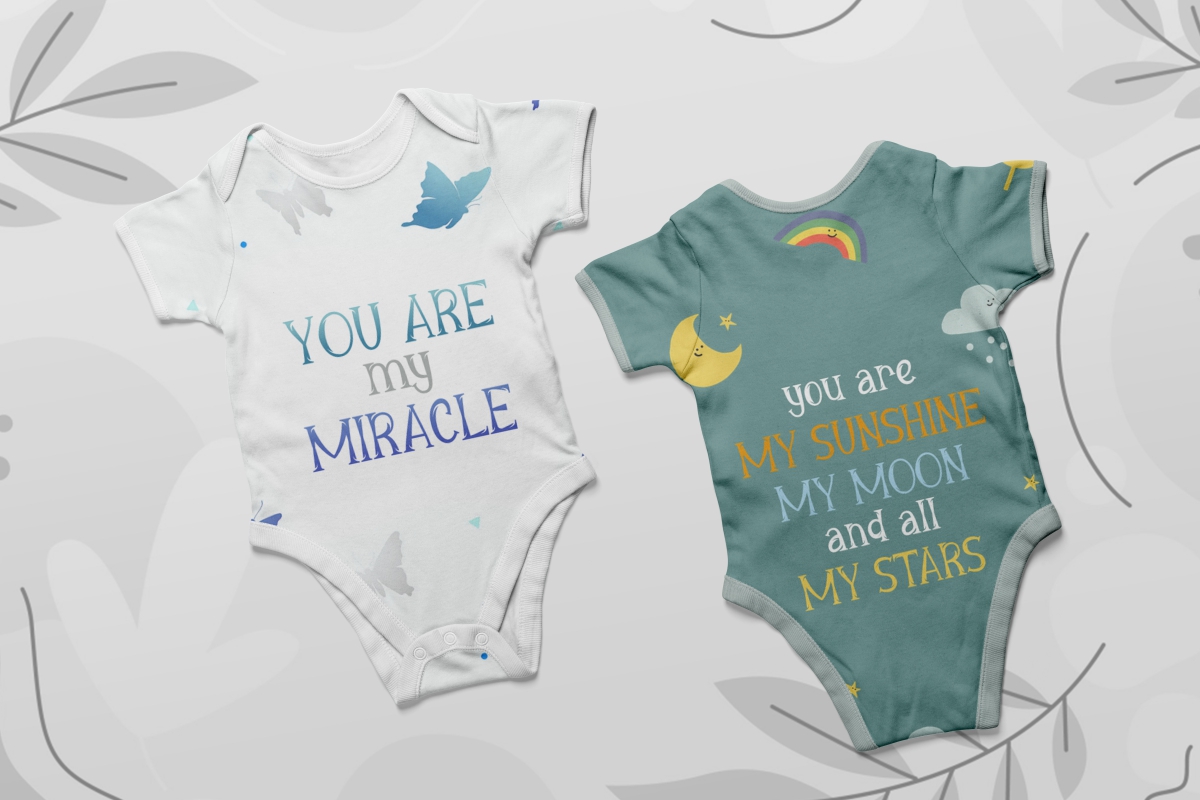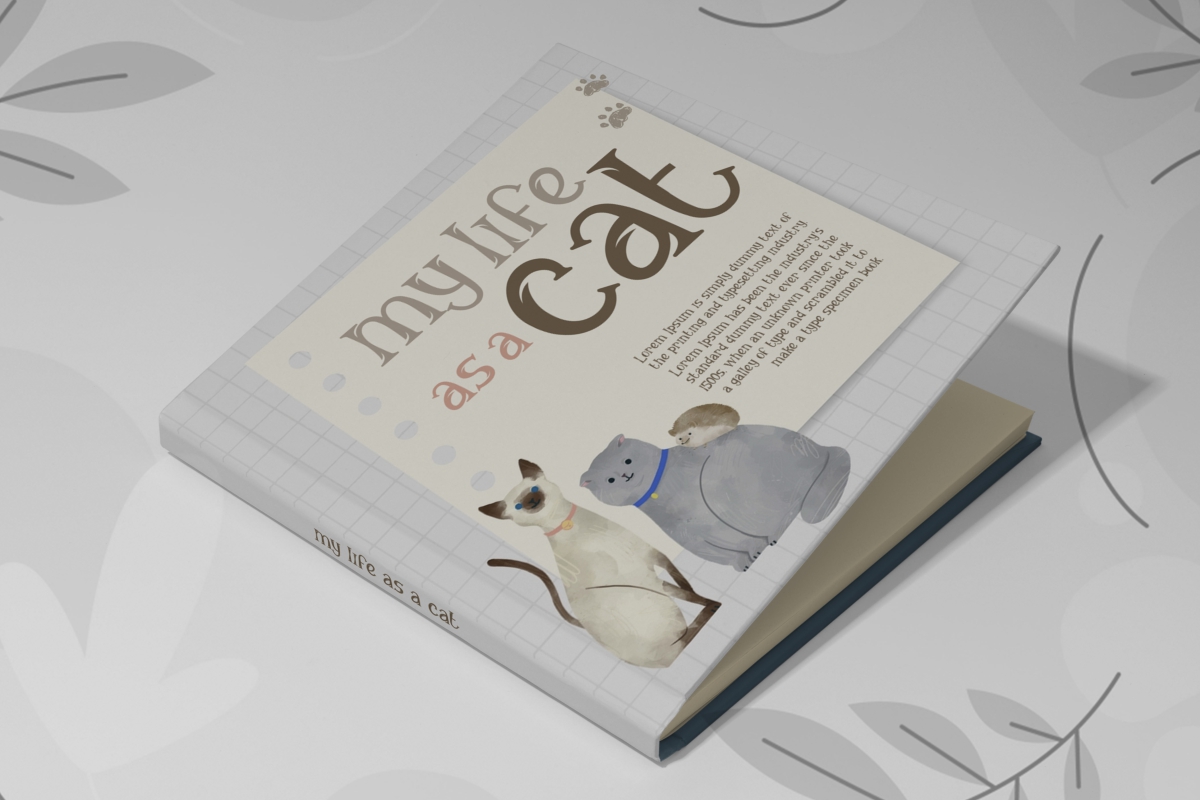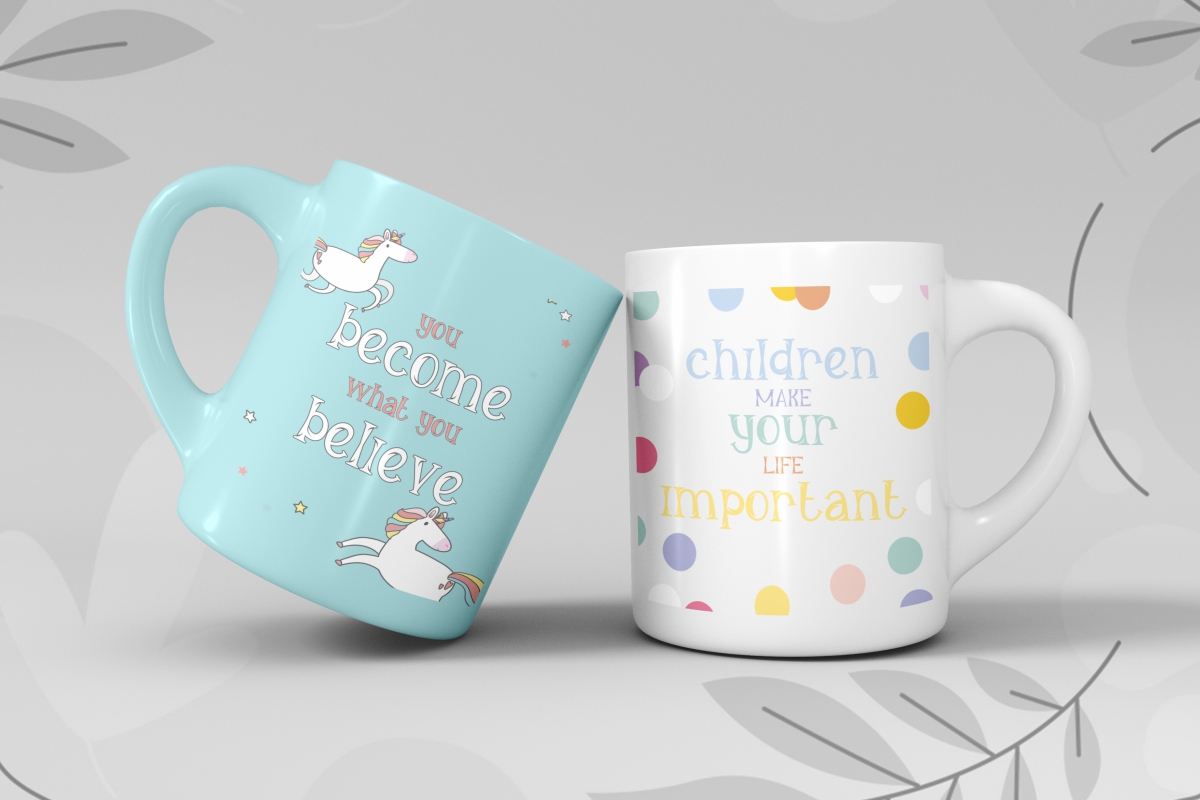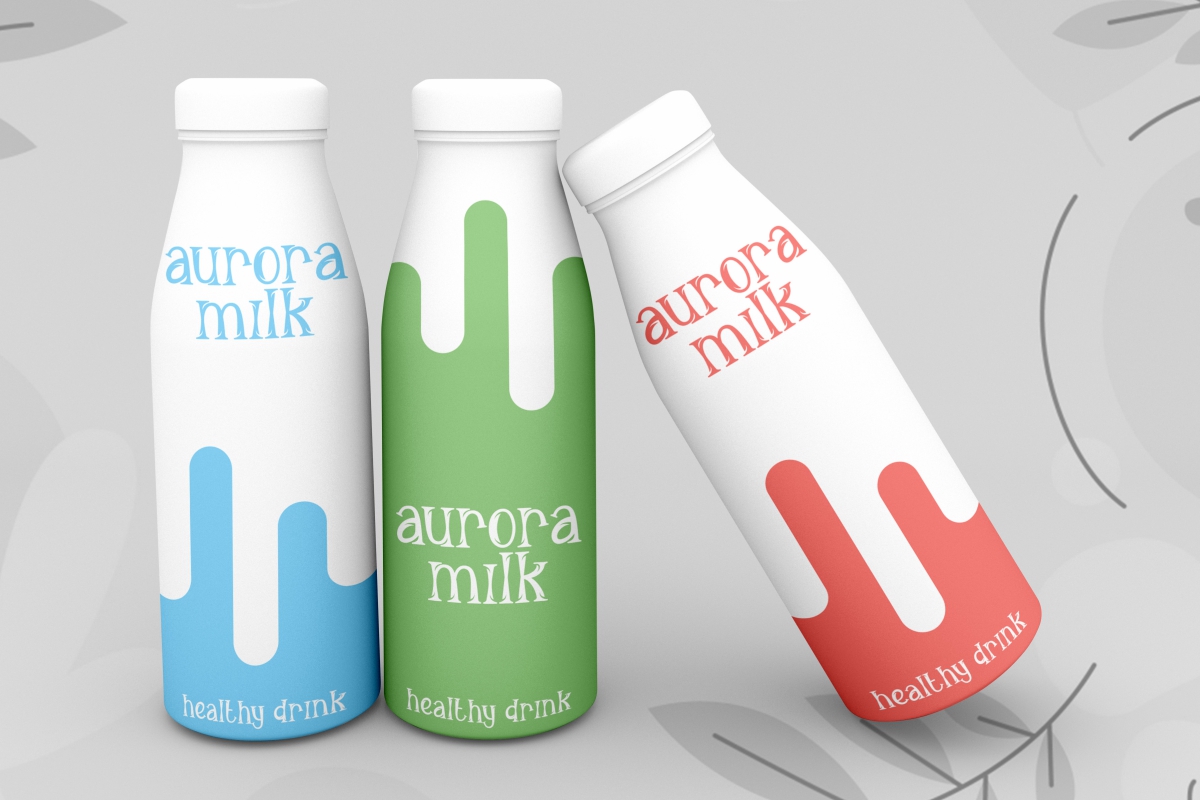
George Asher Font
George Asher Script Font
This is a unique serif display font. This font has a decorative and informal style, and it’s a good choice for each of the creations that require a different touch. George Asher Font suitable for any business or industry such as advertising and promotion, publishing, crafts, digital design, culinary, children’s design, packaging and product design, perfect!